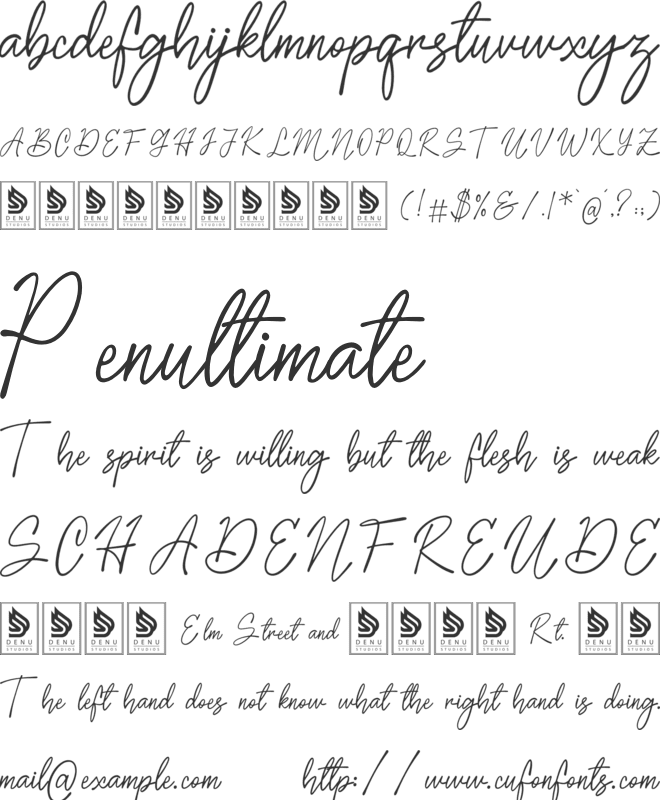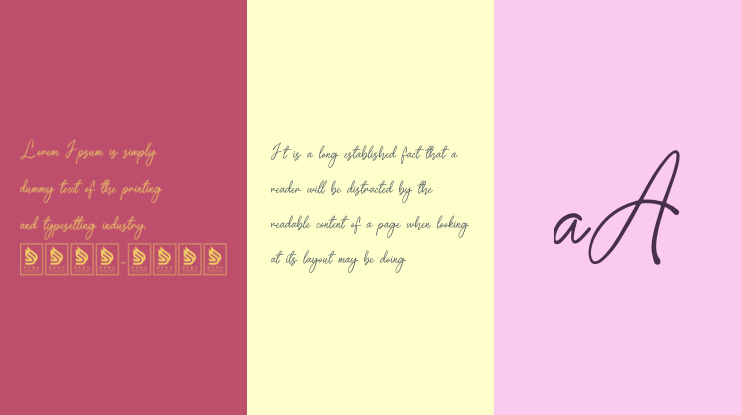
Belayita | Modern Chic Signature is perfect for various projects including logos, branding, homeware designs, product packaging, mugs, quotes, posters, shopping bags, t-shirts, book covers, name cards, invitation cards, greeting cards, labels, photography, watermarks, special events, and any other delightful projects that require a touch of beautiful script.